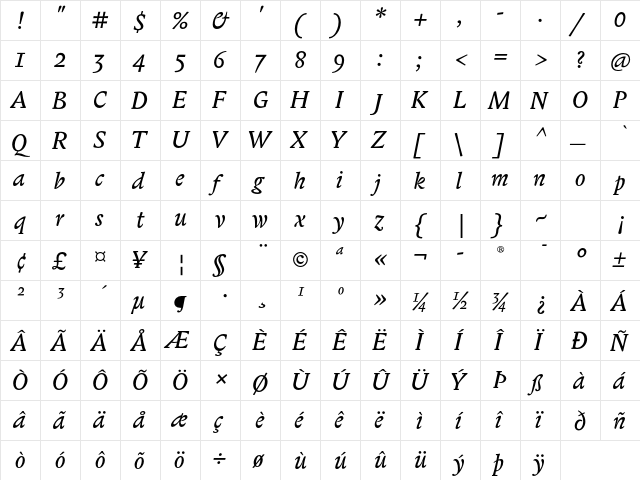
Biblon ITC Std Italic
| Designer | Frantisek Storm |
Design Context for Biblon ITC Std Typeface
Biblon ITC Std is a composed and adaptable typeface that performs quietly and consistently across a wide range of design contexts. The dynamic lean of this cut emphasises speed and emphasis in any layout.
Pro Tip: Use Biblon ITC Std for emphasis, pull quotes, and subheadings where its slanted energy can add rhythm to the layout.